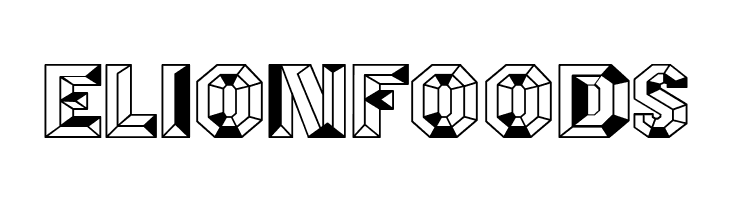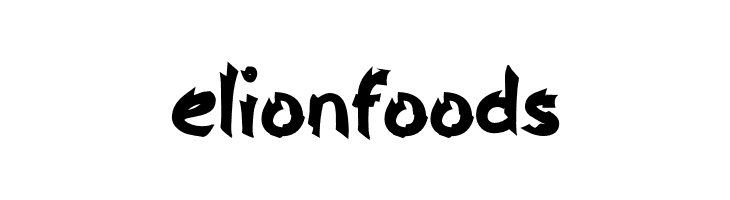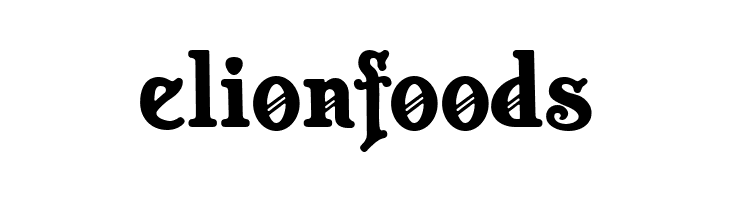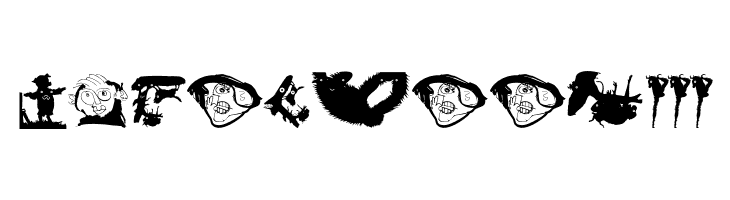
• Apex Mk2 Regular
A bold, geometric sans-serif font with a modern, industrial style.
• Api Nyala
A bold, dynamic font with sharp, angular edges and a fierce, energetic appearance.
• Api Nyala
A bold, dynamic font with sharp, angular edges and a hand-drawn feel.
• Apish
A whimsical and bold font featuring cartoonish skull illustrations.
• ApishOne
A whimsical and artistic display font with unique illustrated characters.
• Aple Time
A bold, brush-style font with high contrast and dynamic strokes.
• Apocalyptic Powers Regular
A bold, geometric font with a futuristic, crystalline design.
• Apollo
A modern, rounded font with clean lines and balanced spacing.
• Apollo ASM
A bold, decorative font with intricate swirls and flourishes.
• Apollo ASM
A decorative and ornate font with intricate swirls and embellishments.